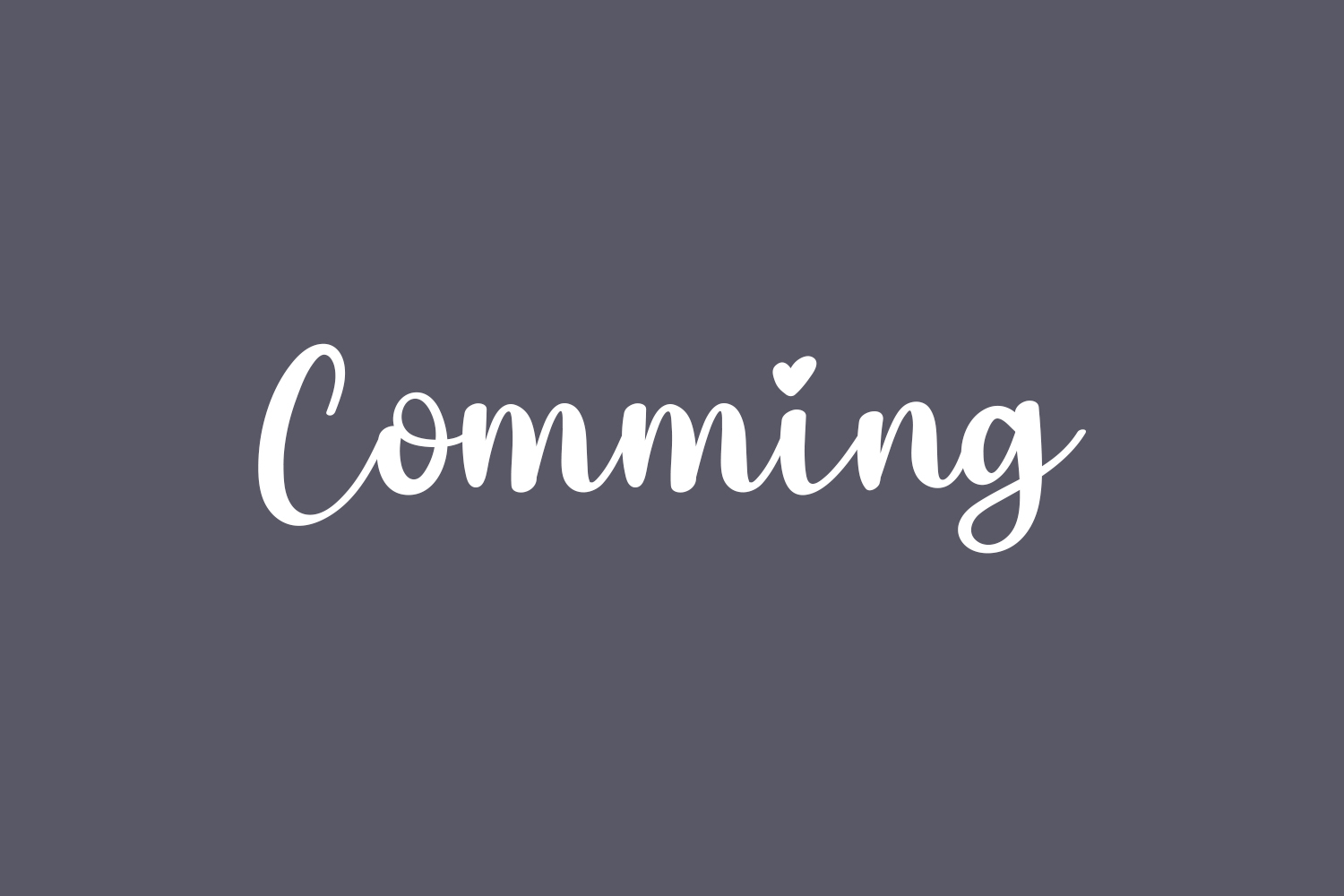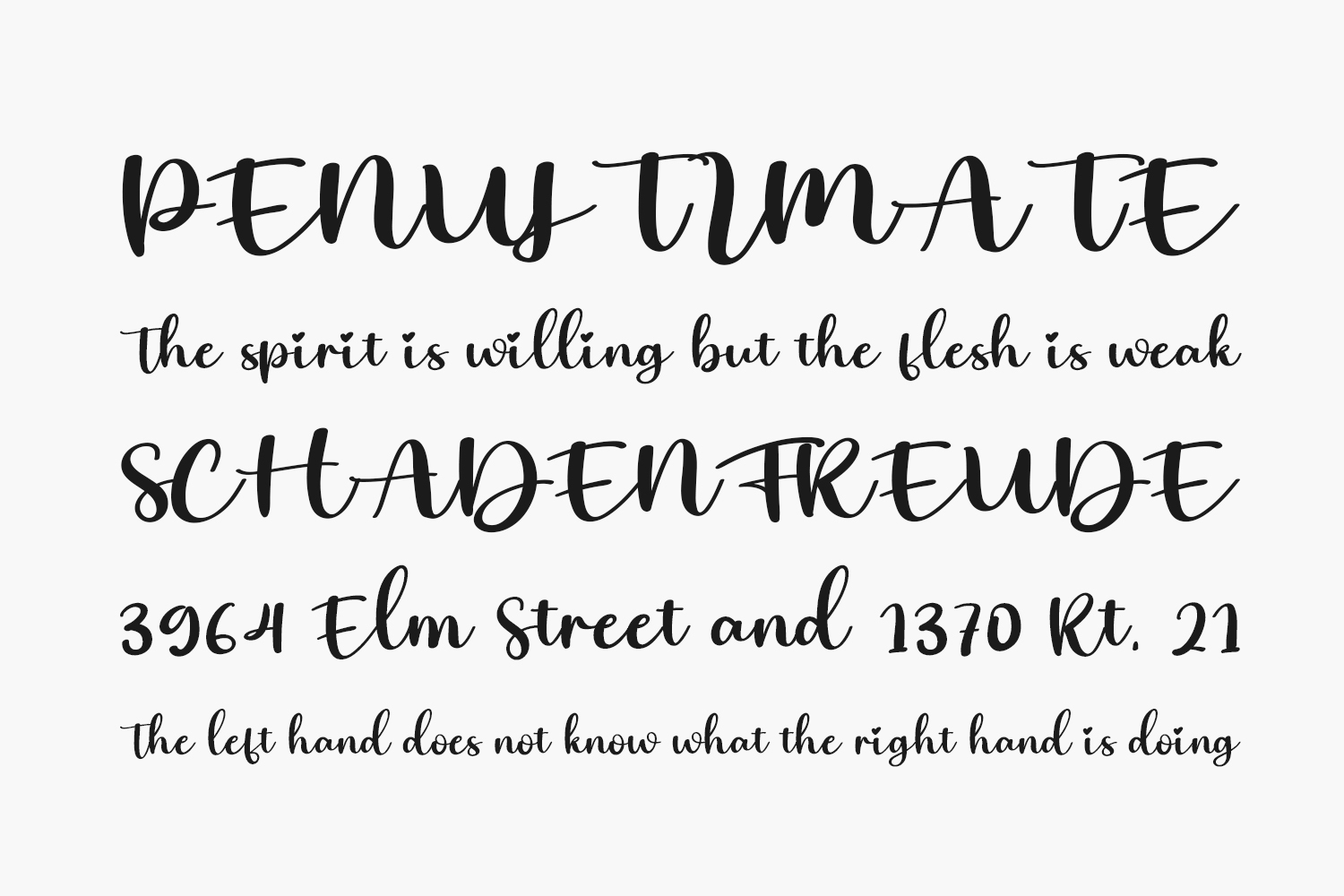
Meet Comming Free Font, a stunning and impactful handwritten font designed to infuse style into your headlines and logotype projects. This font exudes strength, confidence, and dynamism, bringing a nostalgic charm that elevates your designs to the next level. Comming Free Font is free for personal use only. Please purchase the full version for commercial use.